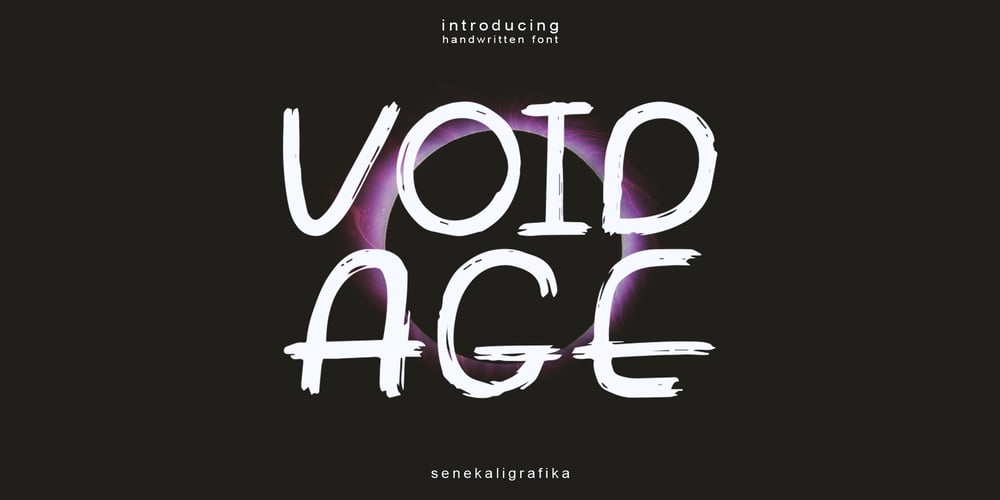
Void Age Font Family was designed by Muhammad Helmi and published by Senekaligrafika. Void Age contains 1 styles and family package options. “VOID AGE” has hard strokes and signature style that speak to instant unique sensation. Take your creative projects to the highest level with this font.“VOID AGE” will help you to create special and touching typographical design for your characteristical and exclusively projects, for branding, food product, cafe product, restaurant product, labeling, clothing, movie title, album cover, logos and many more.It is really universal and modern font. The owner of endless possibilities!